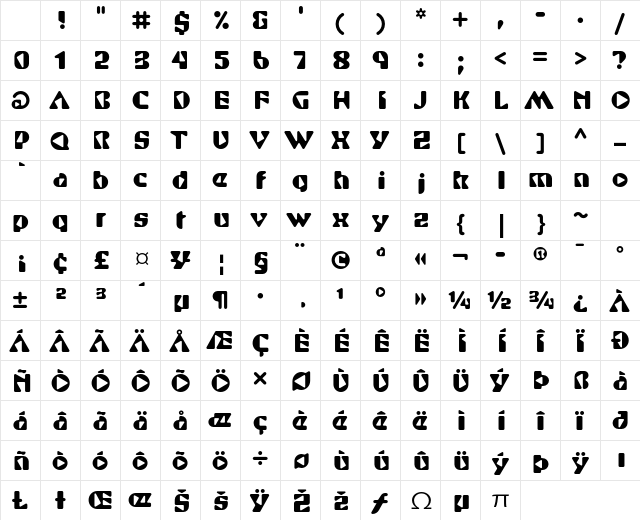
Shuriken Boy Std Regular
Designer: Joachim M￿ller-Lanc￿
Design Context for Shuriken Boy Std
Shuriken Boy Std is a composed and adaptable typeface that performs quietly and consistently across a wide range of design contexts.